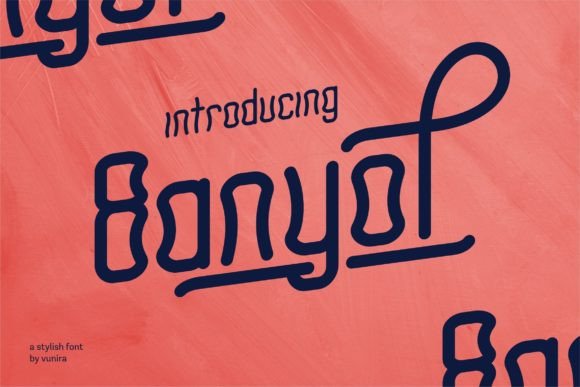
Adorn your designs with the enchanting charm of Banyol, an exquisite script font crafted by the talented Vunira. Inspired by the festive spirit of Christmas, Banyol's whimsical curves and captivating glyphs will transform your posters into enchanting works of art. Let the magic of Banyol ignite your creativity and leave a lasting impression on your audience.
With Banyol's graceful strokes and playful ligatures, you can effortlessly elevate your designs to new heights. This font is a treasure trove of artistic possibilities, perfect for capturing the essence of joy, love, and festive cheer. Its unique shape and flowing lines will add a touch of whimsy and elegance to your Christmas-themed creations.
Indulge in the boundless versatility of Banyol and witness how it effortlessly adapts to a myriad of design styles. From heartwarming holiday greetings to enchanting invitations, Banyol's enchanting presence will captivate your audience and leave them spellbound. Its PUA encoding grants you access to a world of intricate glyphs and ligatures, empowering you to unleash your creative spirit without limits.
Embark on a festive design adventure with Banyol and let your imagination soar. Its enchanting curves and captivating details will transform your Christmas posters into masterpieces that radiate joy and enchantment. Download Banyol today and embrace the magic of this extraordinary script font.